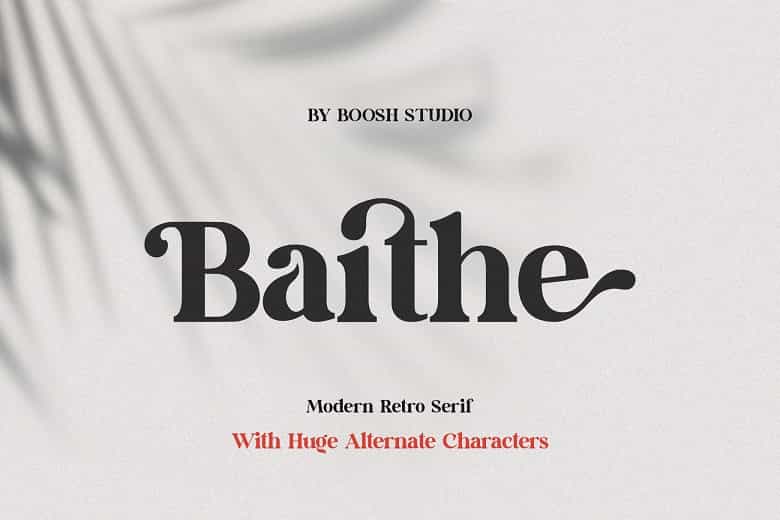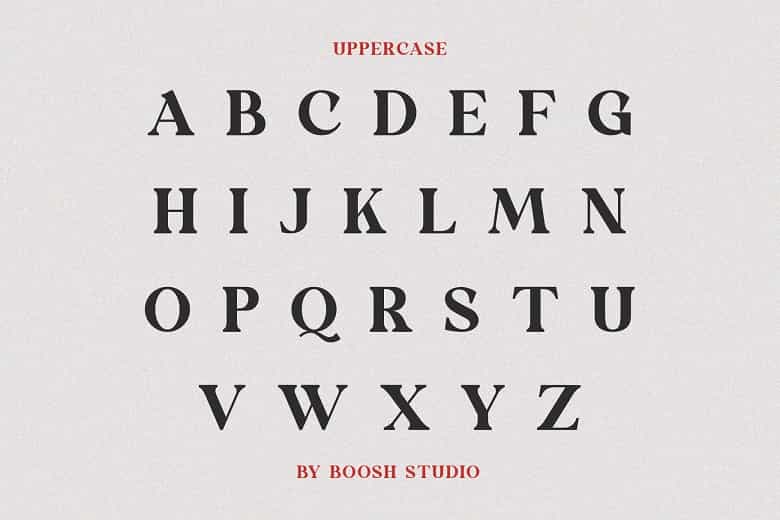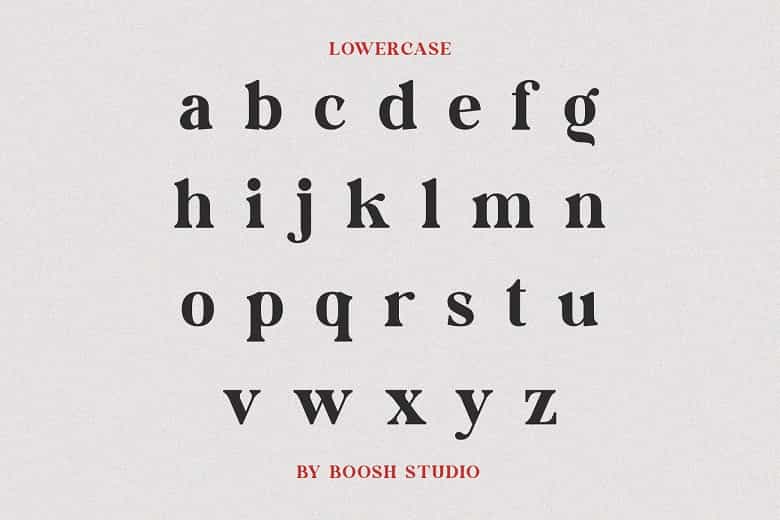
Baithe is a simple, harmonious, graceful, and classy serif font. He is a very good person. It complements invitation card designs, corporate logos, movie titles/ names, business cards, book titles, brand names, and many more designs.